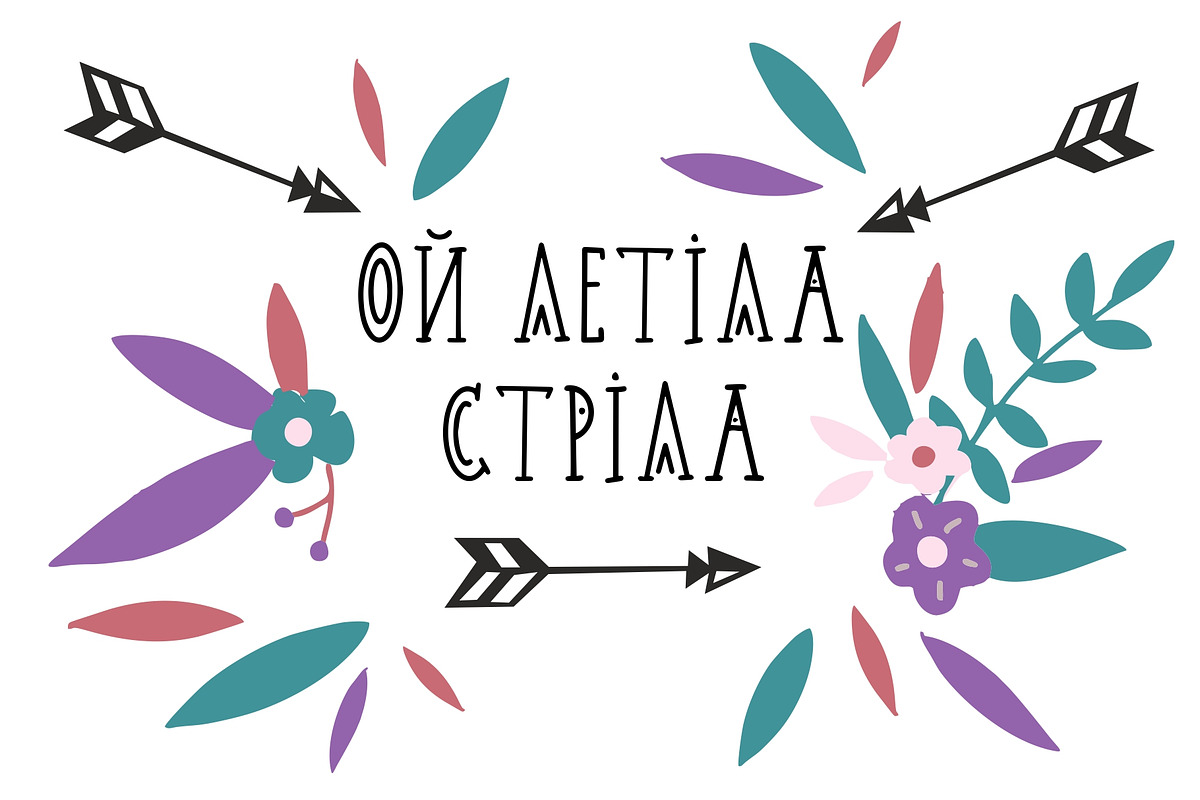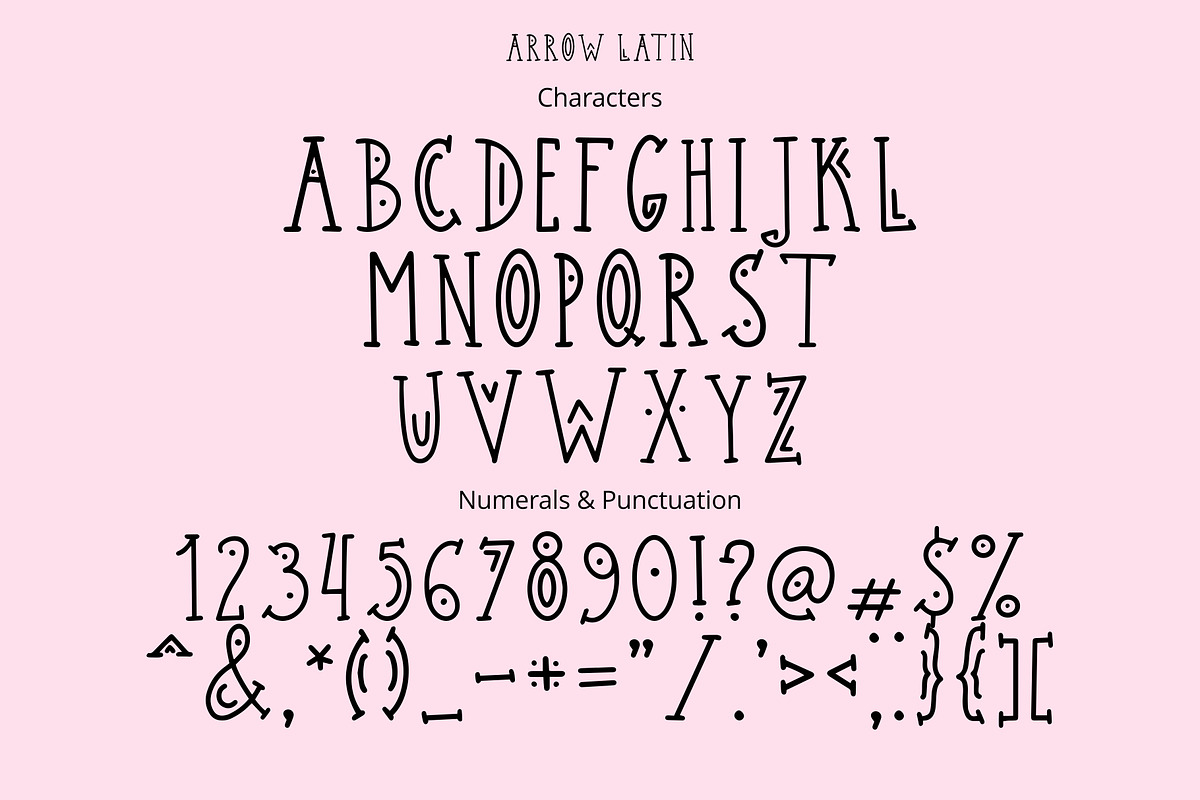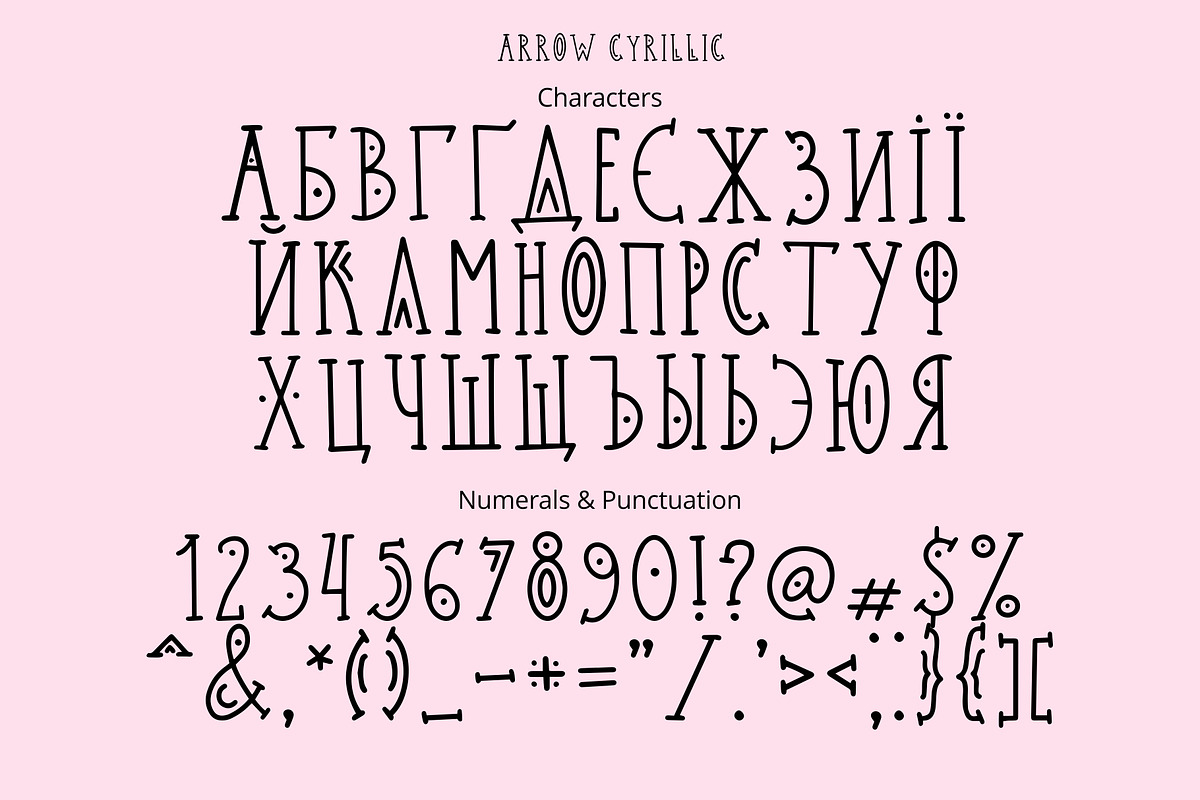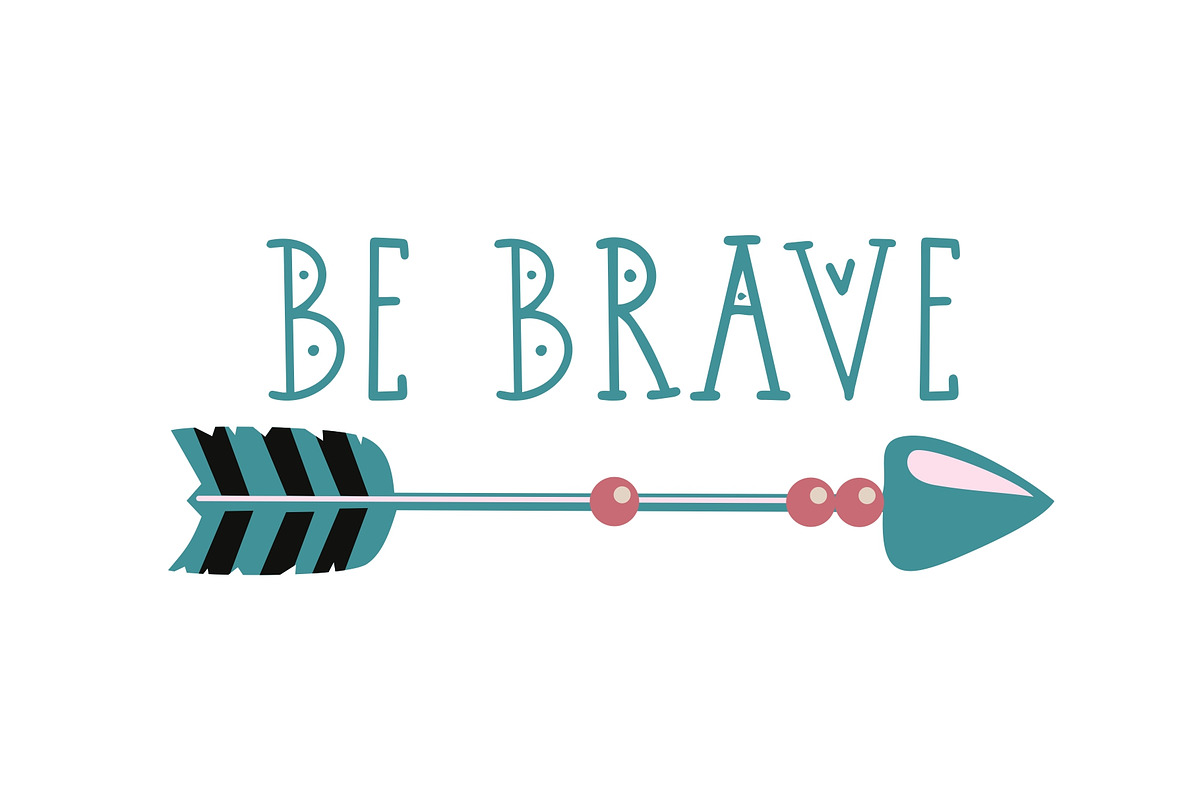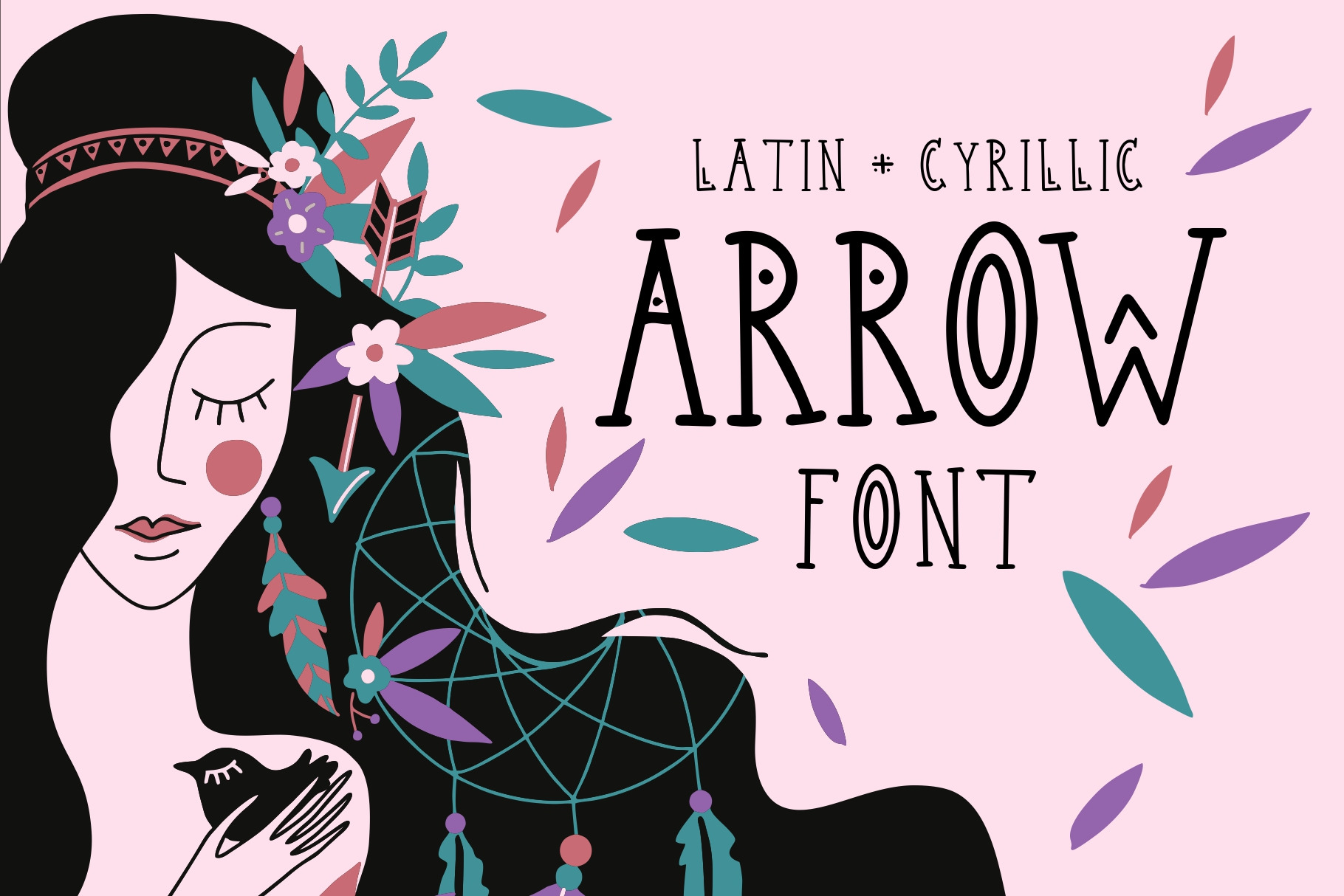
Arrow font
ARROW font contains latin and cyrillic letter sets, numerals and punctuation. This font work nicely for all sorts of halloween things including t-shirt design, typographic art, social media images and so much more!
Arrow (OTF) Font features: Standard characters A-Z, 0-9, and punctuation for the Latin Basic and Western European set, Cyrillic А-Я set + Ukrainian letters. Enjoy!